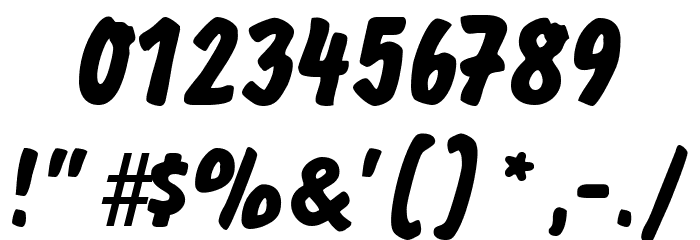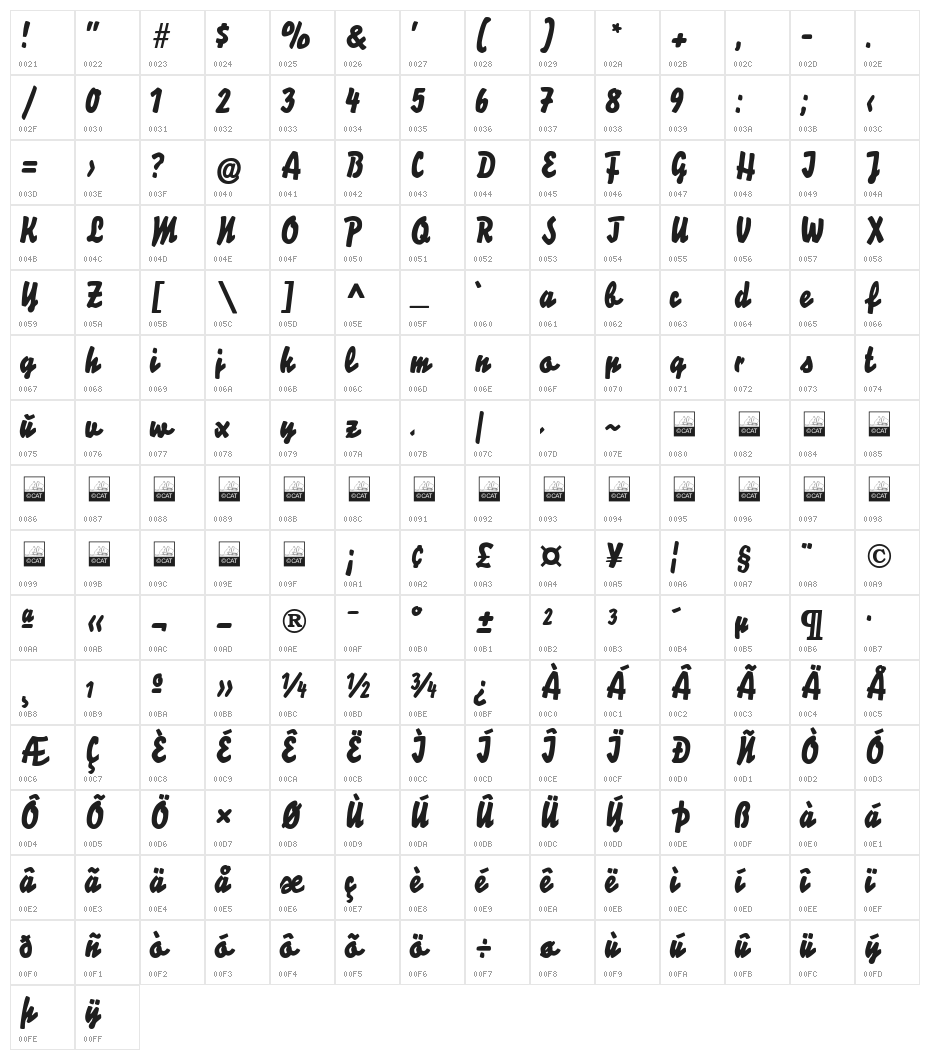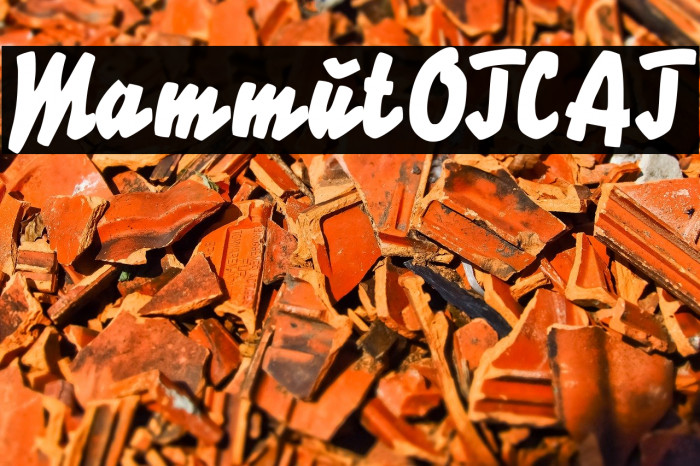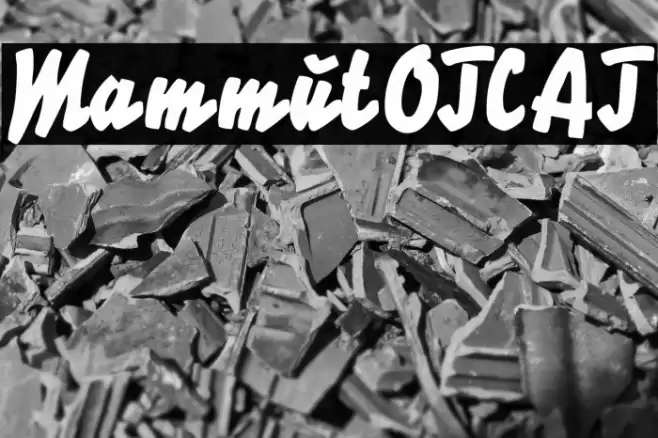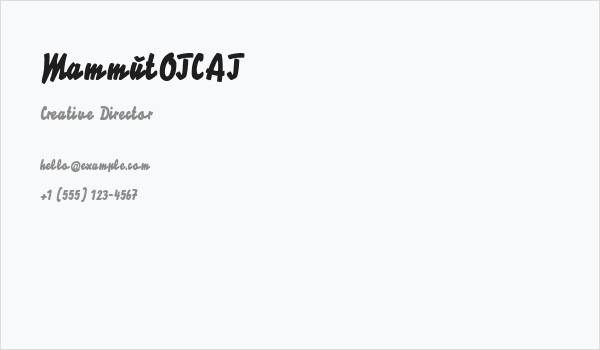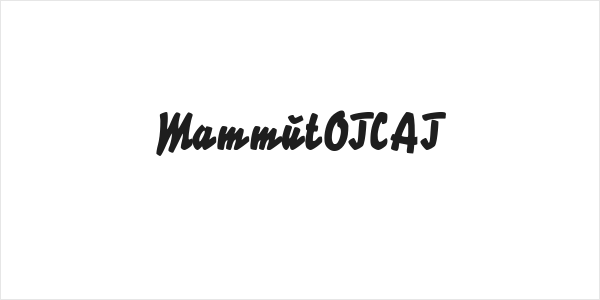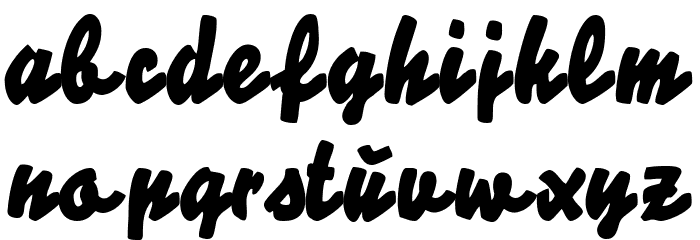
MammutOTCAT Font
MammutOTCAT Description
This font features a bold and dynamic script style with a playful and energetic appearance. The characters are thick and rounded, giving a sense of robustness and friendliness. The uppercase and lowercase letters maintain a consistent flow, with slight variations that add to the font's charm. The numbers and special characters are equally bold, ensuring readability and a cohesive look across all elements. The font's design is suitable for creating eye-catching headlines and logos, where a touch of personality is desired.